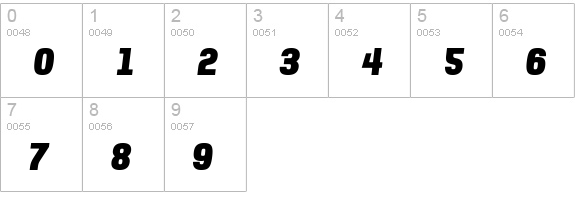
FauxCRA-ExtraBoldItalic Font Details
Introducing FauxCRA-ExtraBoldItalic, a striking and dynamic typeface that exudes confidence and modernity. This font is perfect for making a bold statement in your designs, whether it's for branding, advertising, or any creative project that requires a touch of sophistication. Its extra bold weight commands attention, while the italicized slant adds a sense of movement and energy. FauxCRA-ExtraBoldItalic strikes the perfect balance between boldness and elegance, making it a versatile choice for a wide range of design applications. Best of all, FauxCRA-ExtraBoldItalic is available for free download at FontsMarket.com. So, elevate your design projects with this eye-catching font without breaking the bank. Download FauxCRA-ExtraBoldItalic today and let your creativity shine!